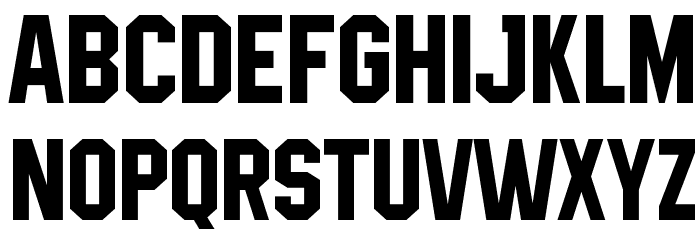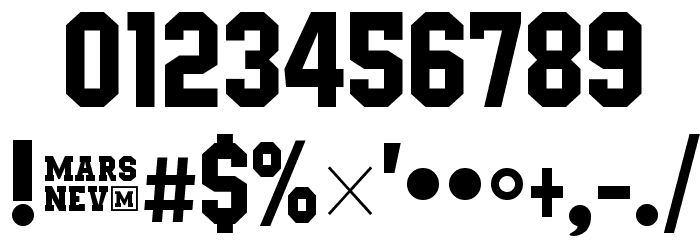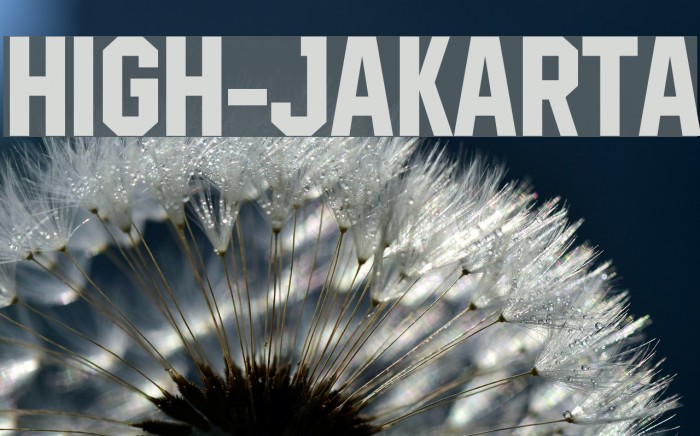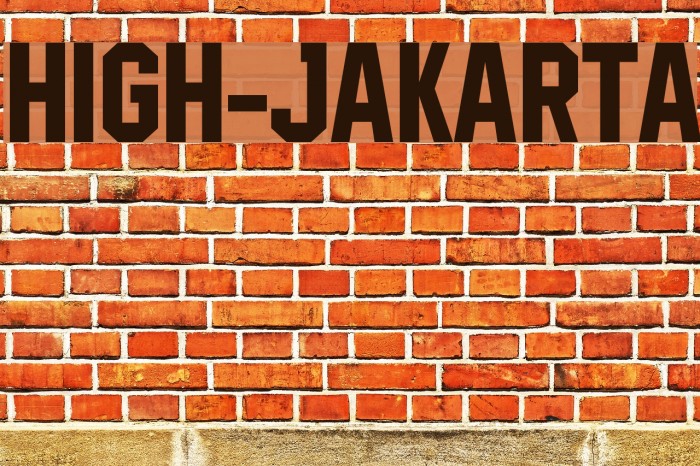
High-Jakarta Font
This font features a bold and impactful design with strong geometric shapes and a modern aesthetic. The uppercase letters are uniformly structured, providing a sense of stability and strength. The numbers and special characters maintain the same boldness, ensuring consistency across all elements. The font's angular edges and solid forms make it highly legible and suitable for attention-grabbing designs. Its style is reminiscent of industrial and urban themes, making it ideal for projects that require a strong visual presence.
A bold, geometric font with a modern and impactful design.
- Proposed Projects: Ideal for branding, posters, headlines, and signage where a strong, modern look is desired.